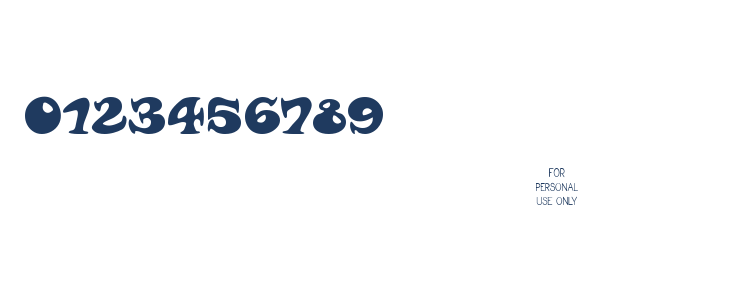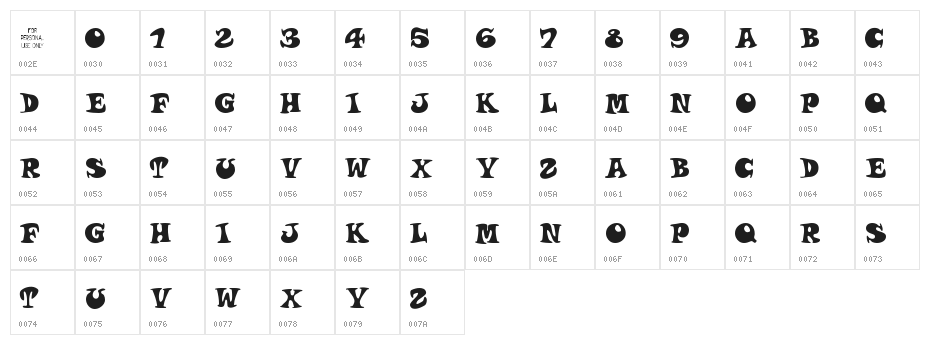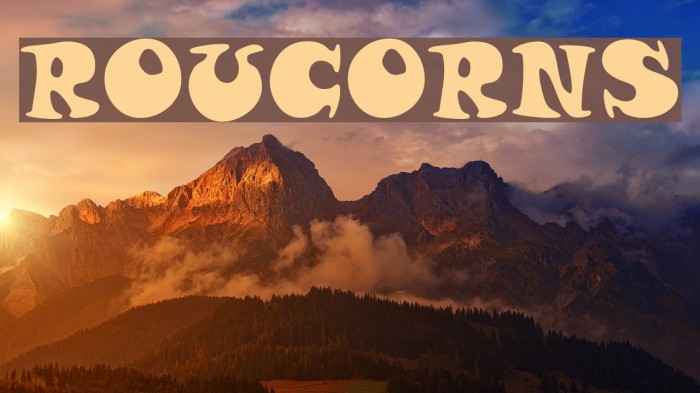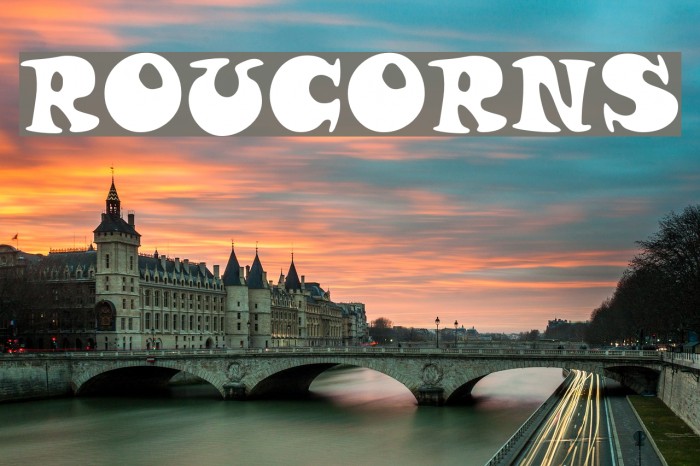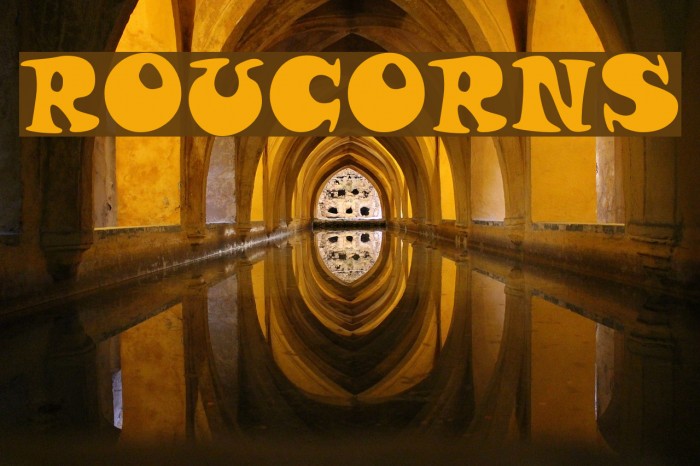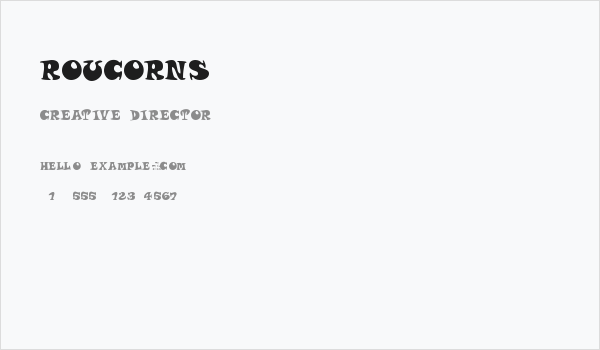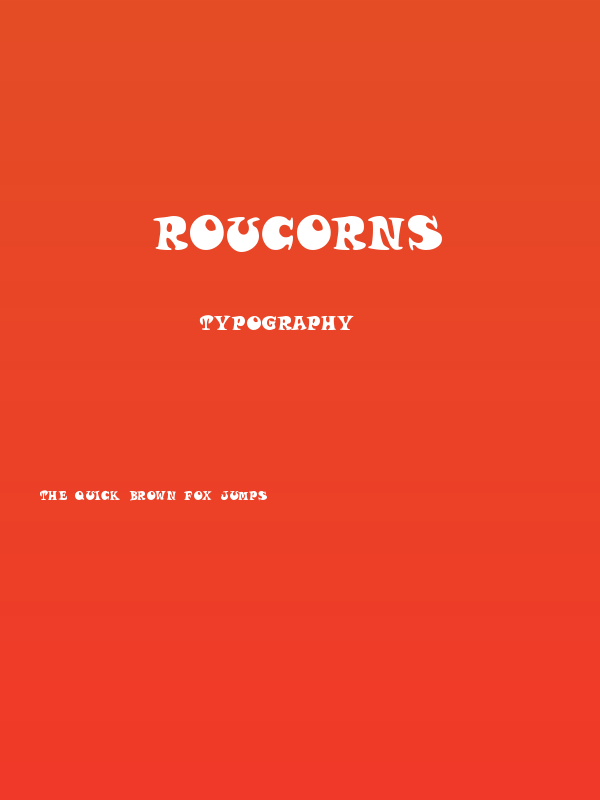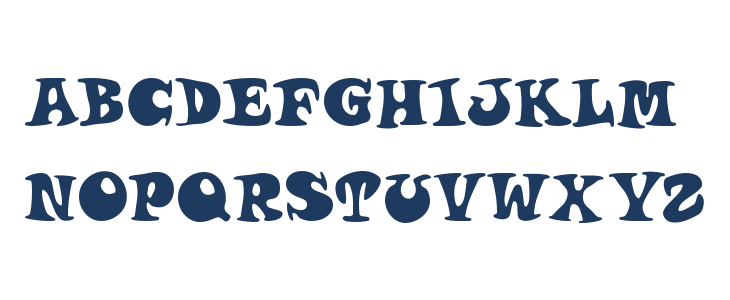
roucorns Font
roucorns Description
This font features a bold and playful design with exaggerated curves and thick strokes, giving it a whimsical and eye-catching appearance. The characters are uniquely shaped, with some letters having a slightly distorted or wavy form, adding to its quirky charm. The numbers follow the same playful style, making them stand out with their bold presence. This font is ideal for projects that require a fun and engaging look, such as children's books, party invitations, or creative branding. Its distinctive style ensures that it captures attention and leaves a memorable impression.
| Overall Style | Playful, Whimsical, Bold |
| Proposed Projects | Children's books, party invitations, creative branding, playful posters. |